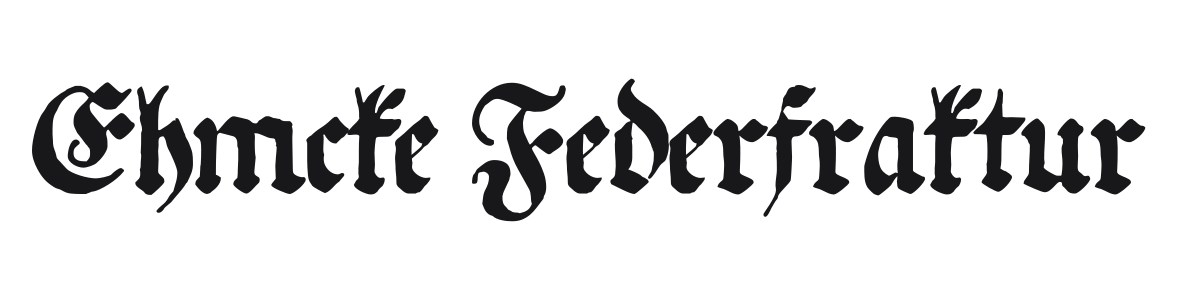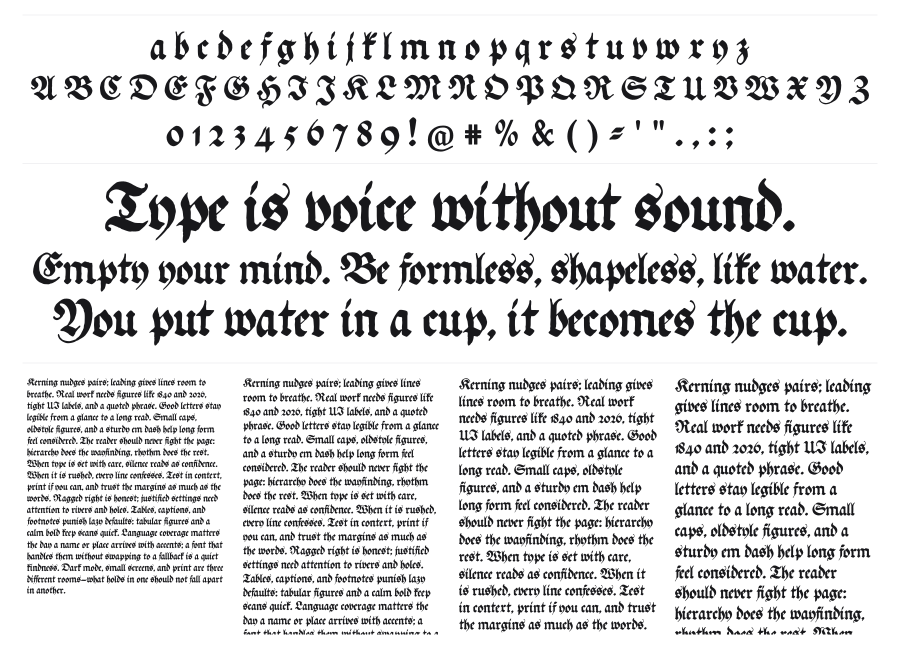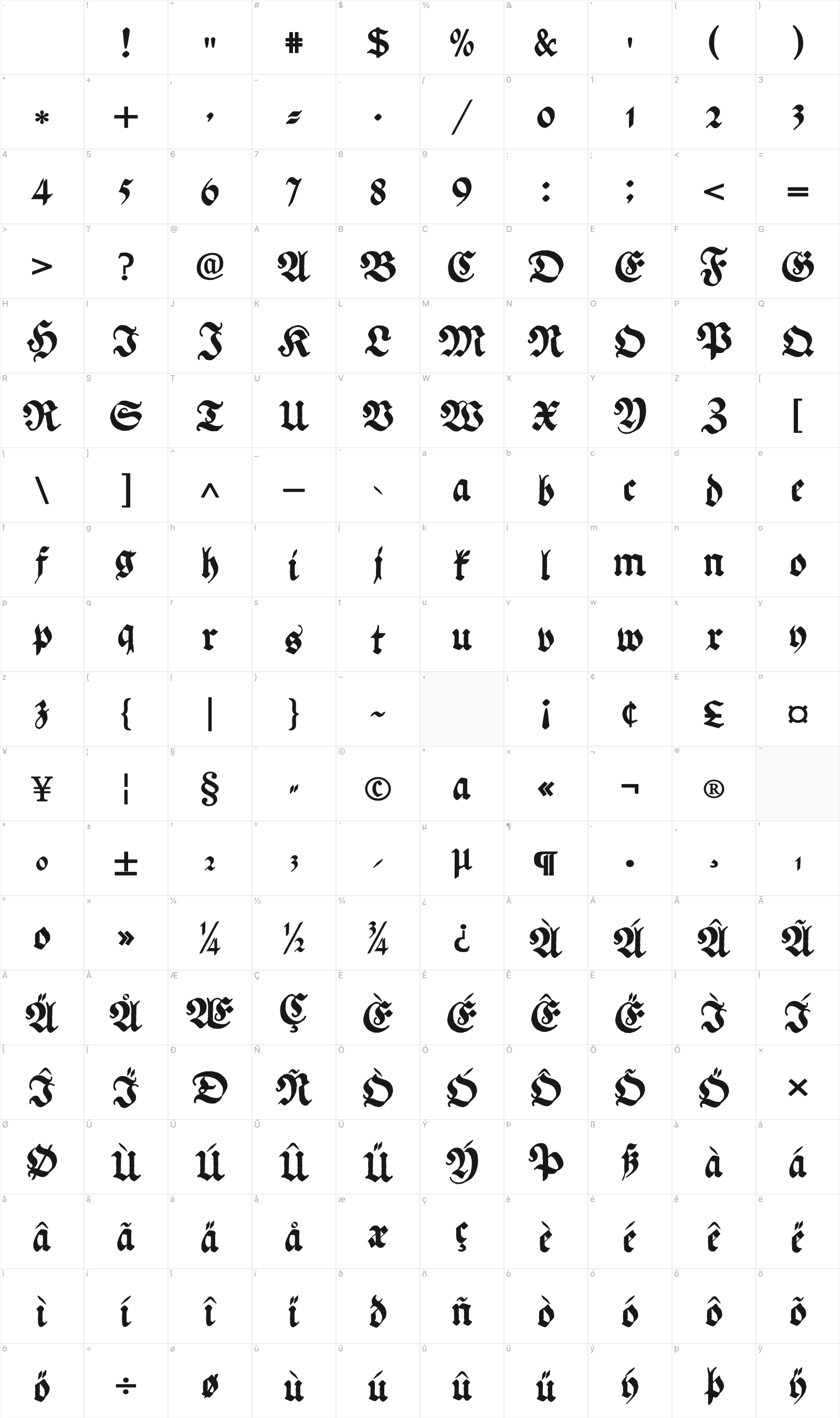
Ehmcke Federfraktur
Ehmcke Federfraktur is a historical German Fraktur blackletter rooted in the pen-written calligraphic tradition, named after Fritz Helmut Ehmcke and revived by Peter Wiegel. The broad-nib construction delivers high stroke contrast and richly organic details at stroke joints and terminals that keep it feeling hand-drawn rather than mechanical. It carries the weight of centuries of German typographic heritage and reads with unmistakable authority at large sizes.